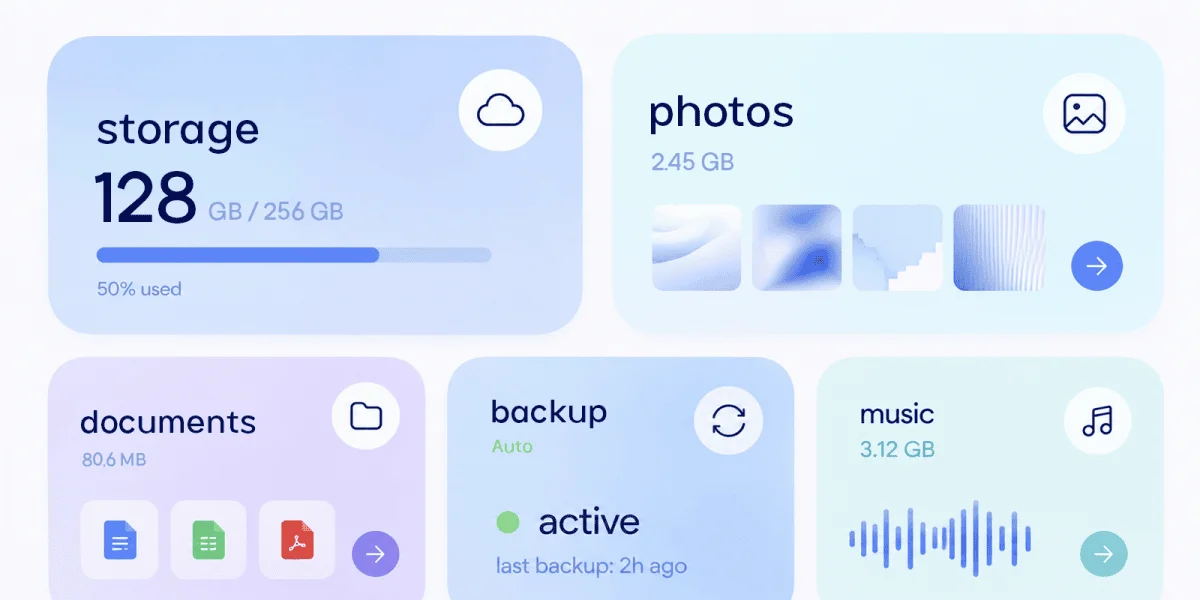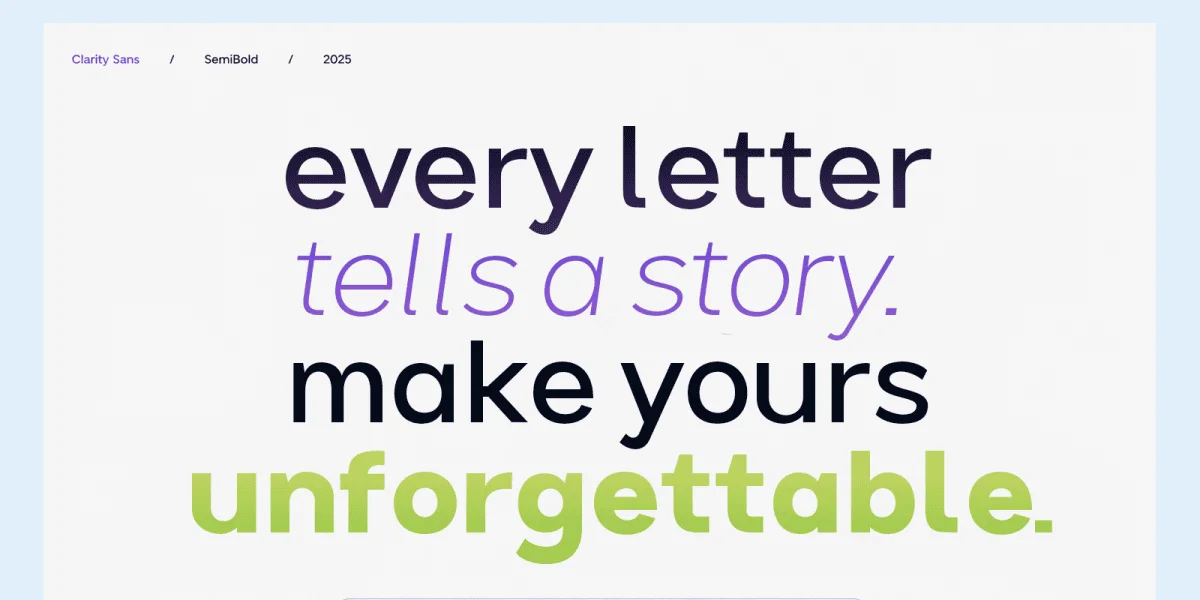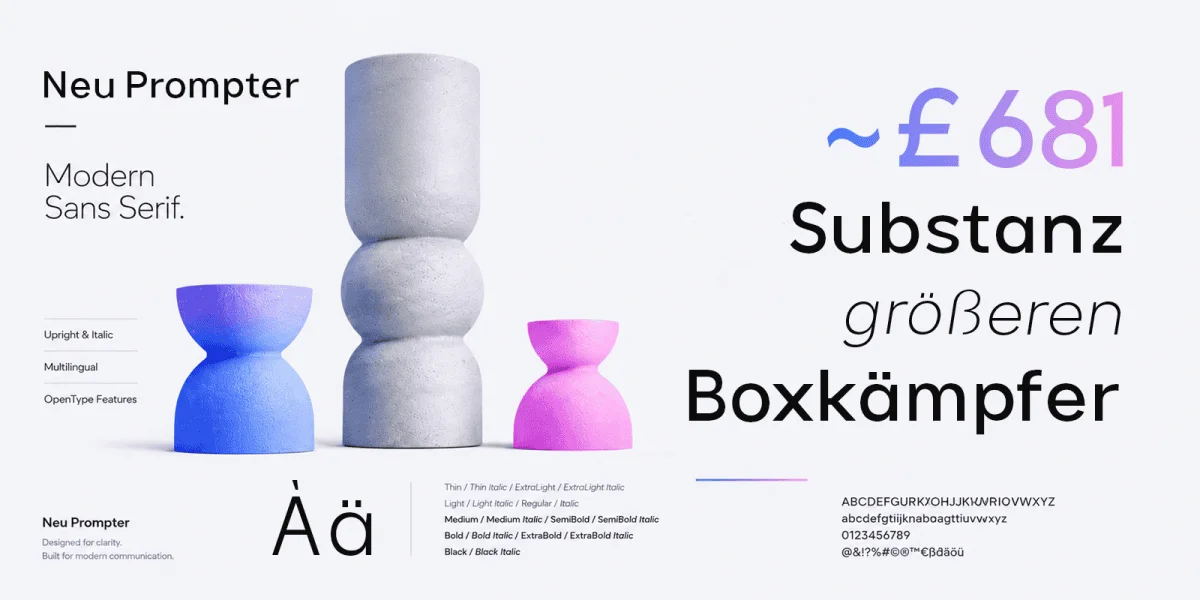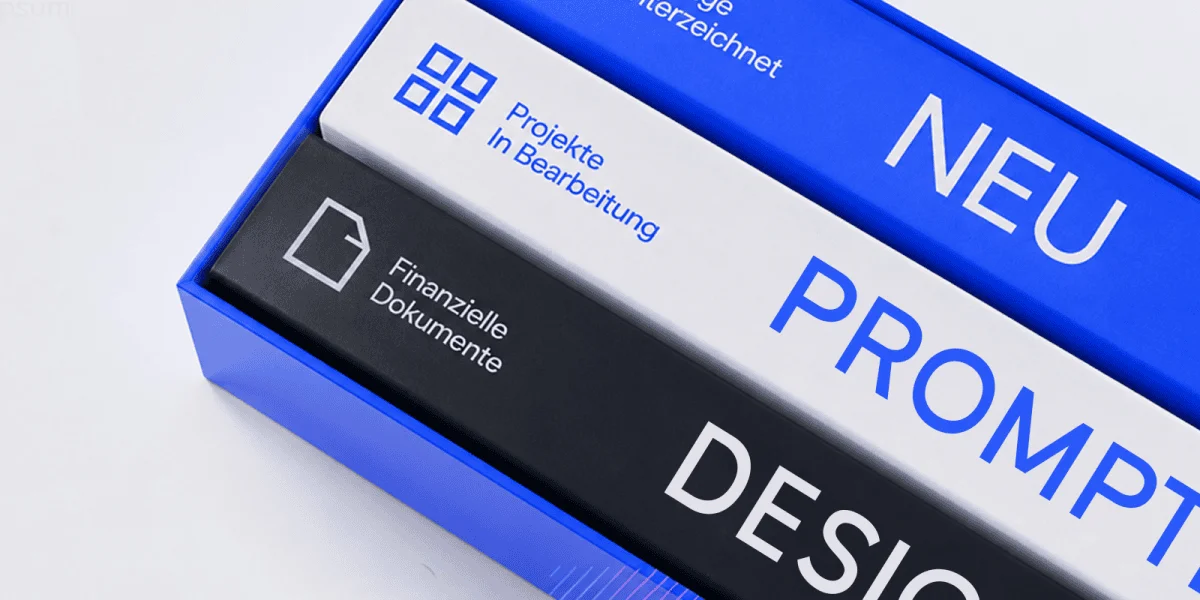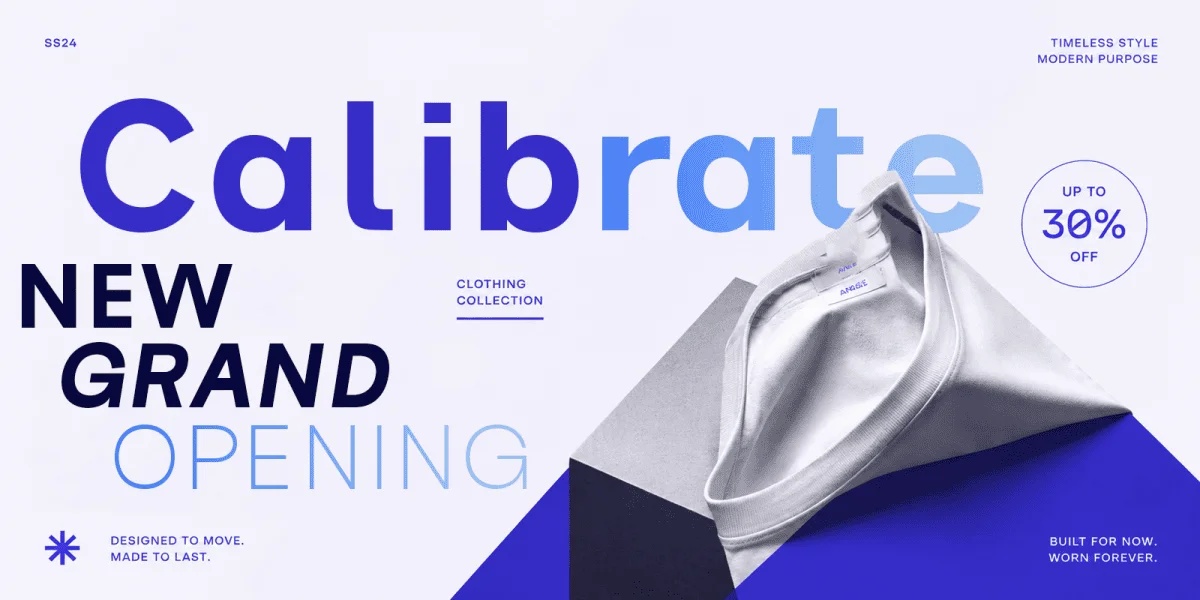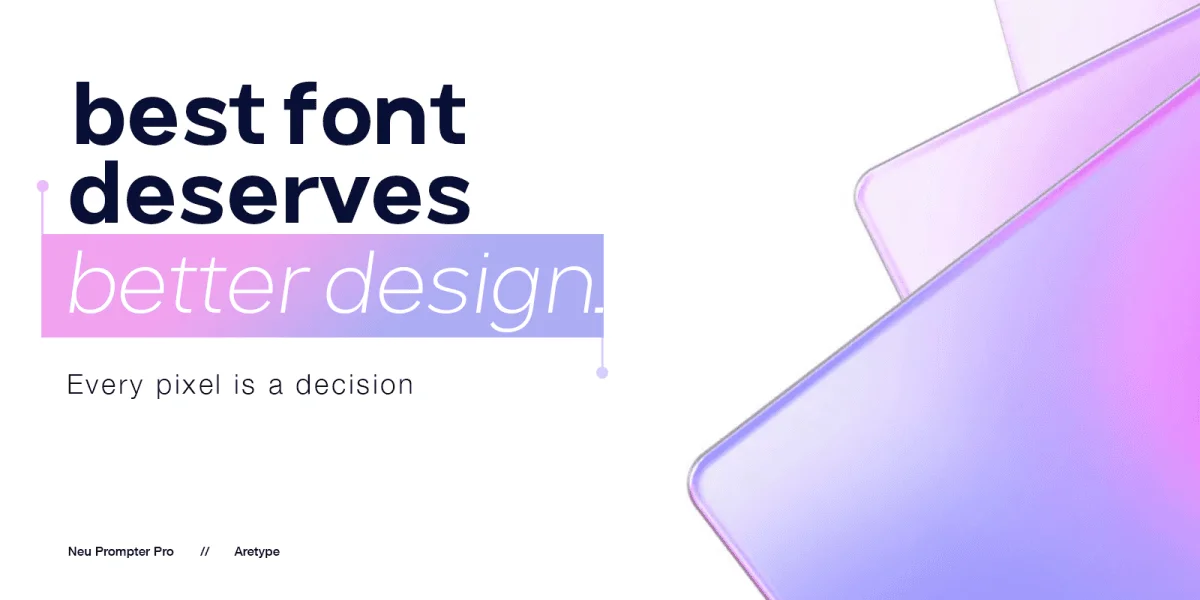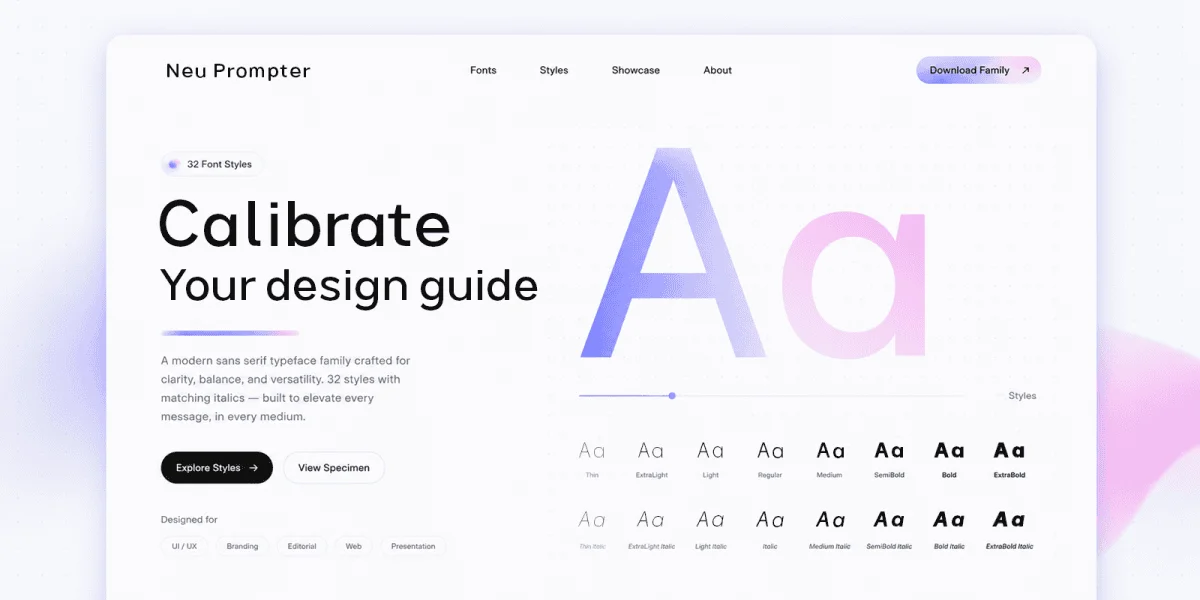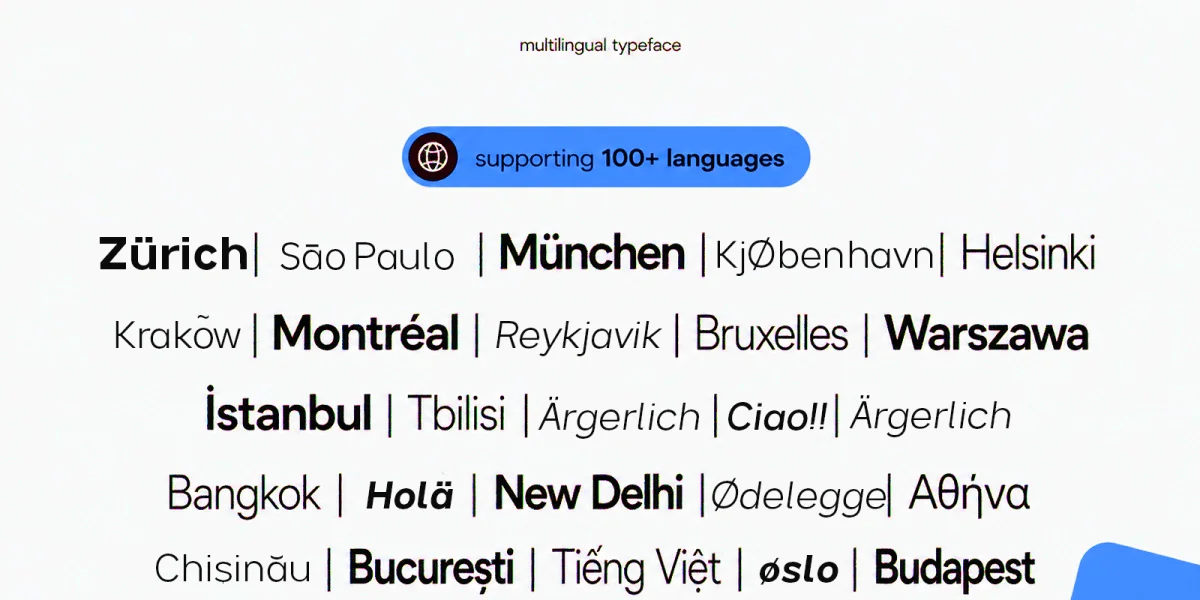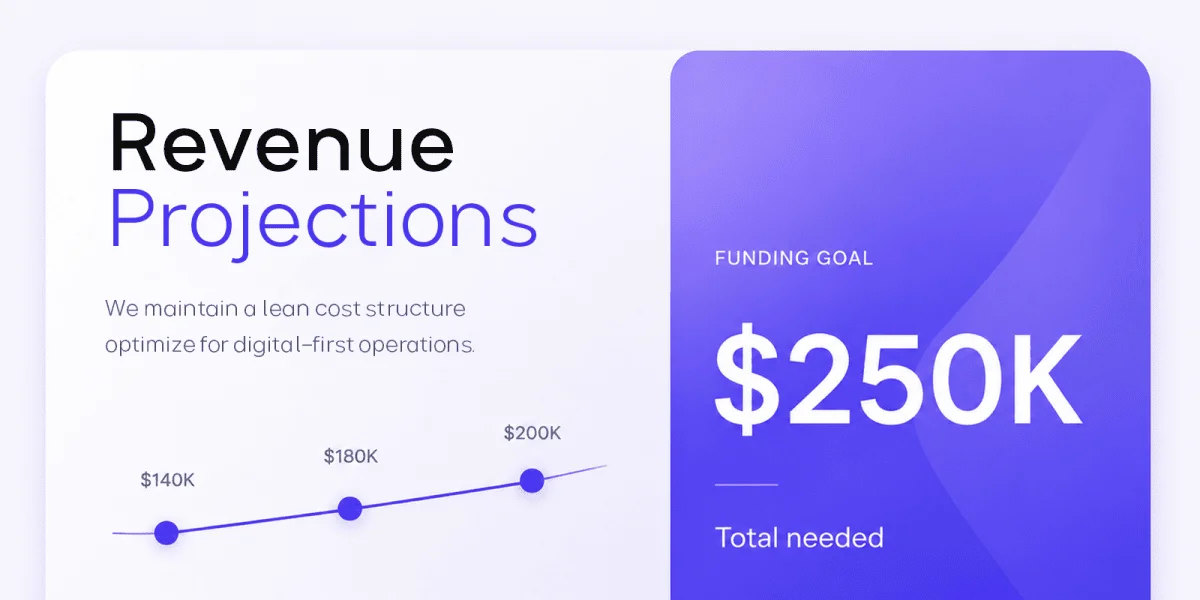
Neu Prompter is a clean, geometric sans-serif typeface designed with a focus on functional clarity and balanced proportions. Its anatomy features a low-contrast, near-monoline stroke weight that maintains consistent visual texture across both its upright Roman and slanted italic styles. The terminals are abruptly cut with flat, planar edges, contributing to a modern, architectural feel. With its generous x-height and open counters, the typeface establishes a highly legible and structured rhythm that is both approachable and technically precise.
This typeface is exceptionally well-suited for digital user interfaces, corporate branding systems, and modern packaging design. Its neutral yet distinct character allows it to perform seamlessly in high-density information environments, such as mobile applications and website body copy, while its bolder weights command attention in editorial mastheads, promotional campaigns, and signage.